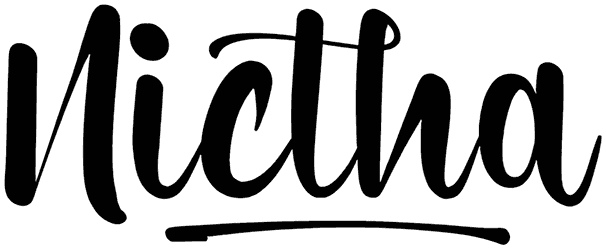
Nictha Font
To be honest, even at first glance, when the audience looks at artwork that is designed with the help of an invitation font such as Nictha, they will be thunderstruck by the unimaginable quality of your work, and while their eyes go up and down following its flow, they fall in love with your posters, book covers, billboards, and product packaging.
Considering its ability to add a sense of dynamic, personalization, and drama, the lack of numbers is negligible.